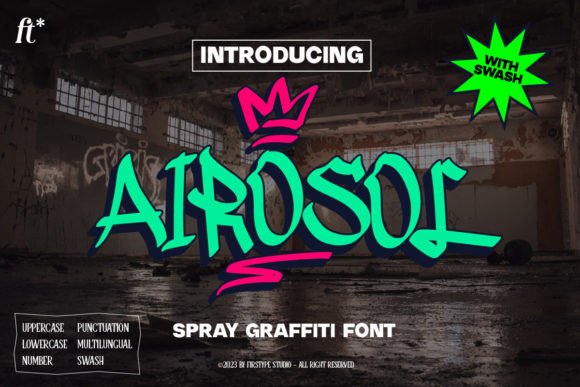
Step into the realm of captivating typography with Airosol Font, a groundbreaking decorative font family designed to set your designs apart. Experience the exhilarating energy of street-style aesthetics, where every letter dances with a unique rhythm and flair.
Unleash your creativity and explore the boundless possibilities of Airosol, the ultimate font for crafting eye-catching logos that leave a lasting impression. Let your branding shine with a distinctive touch that reflects your brand's personality and resonates with your audience. With Airosol, your designs will command attention and ignite imaginations.
Transport your words into captivating quotes that captivate and inspire. Airosol's carefully crafted letterforms add a layer of depth and emotion to your messages, making them leap off the screen and touch the hearts of your readers. Each glyph is a work of art, meticulously designed to evoke a range of emotions and leave a lasting impact.
Embrace the power of swash ornaments, the secret weapon of typographic artistry. With Airosol, you can effortlessly elevate your designs with a touch of elegance and sophistication. These graceful flourishes add an air of refinement and charm, transforming ordinary text into breathtaking masterpieces. Prepare to be mesmerized as your designs come alive with the enchanting allure of Airosol's swash ornaments.